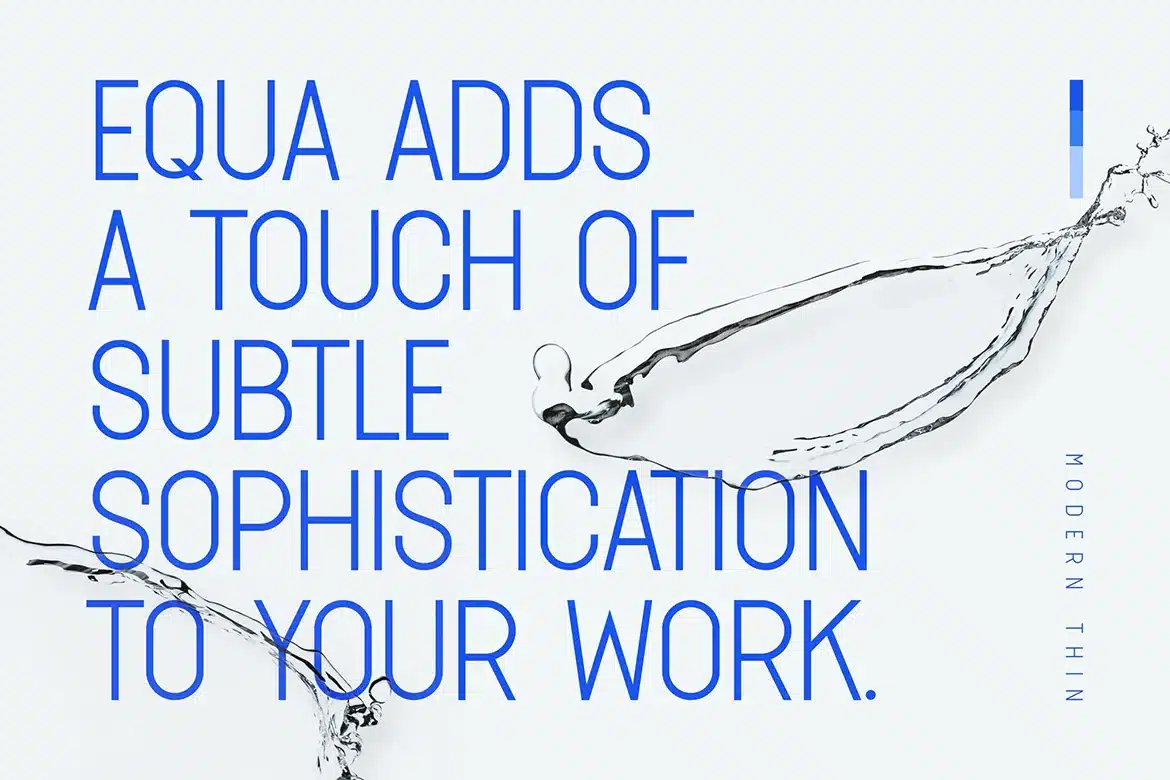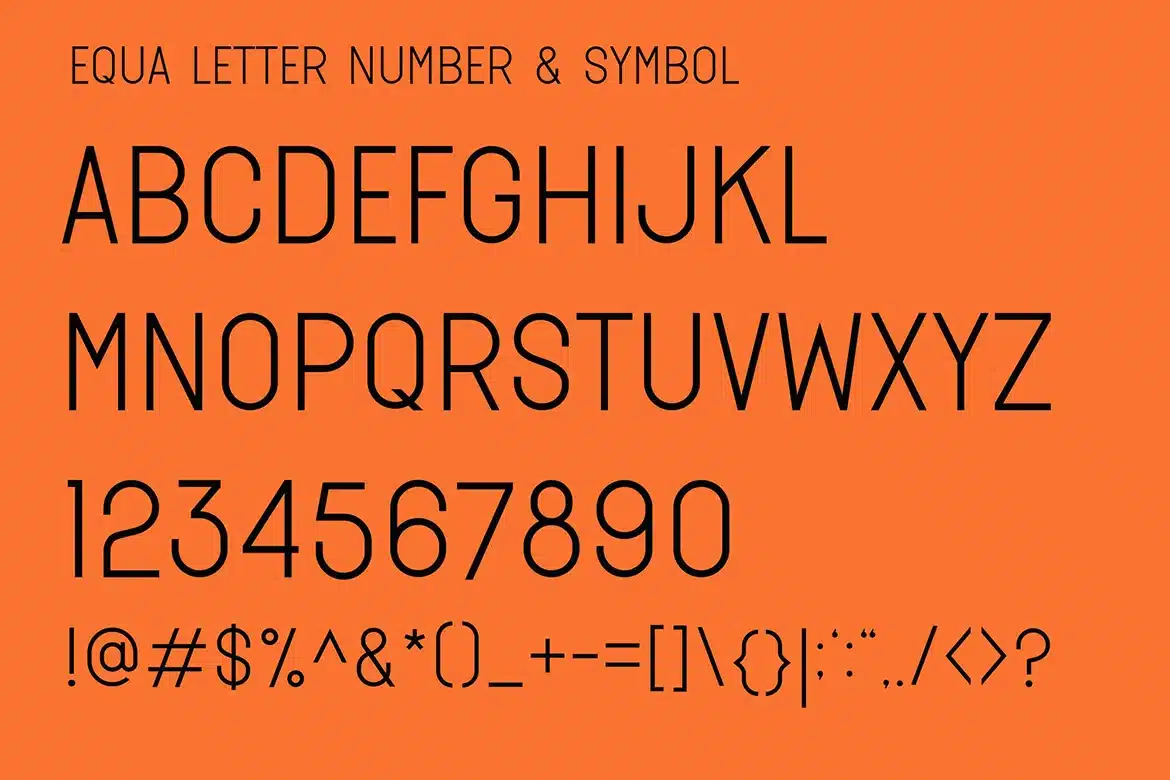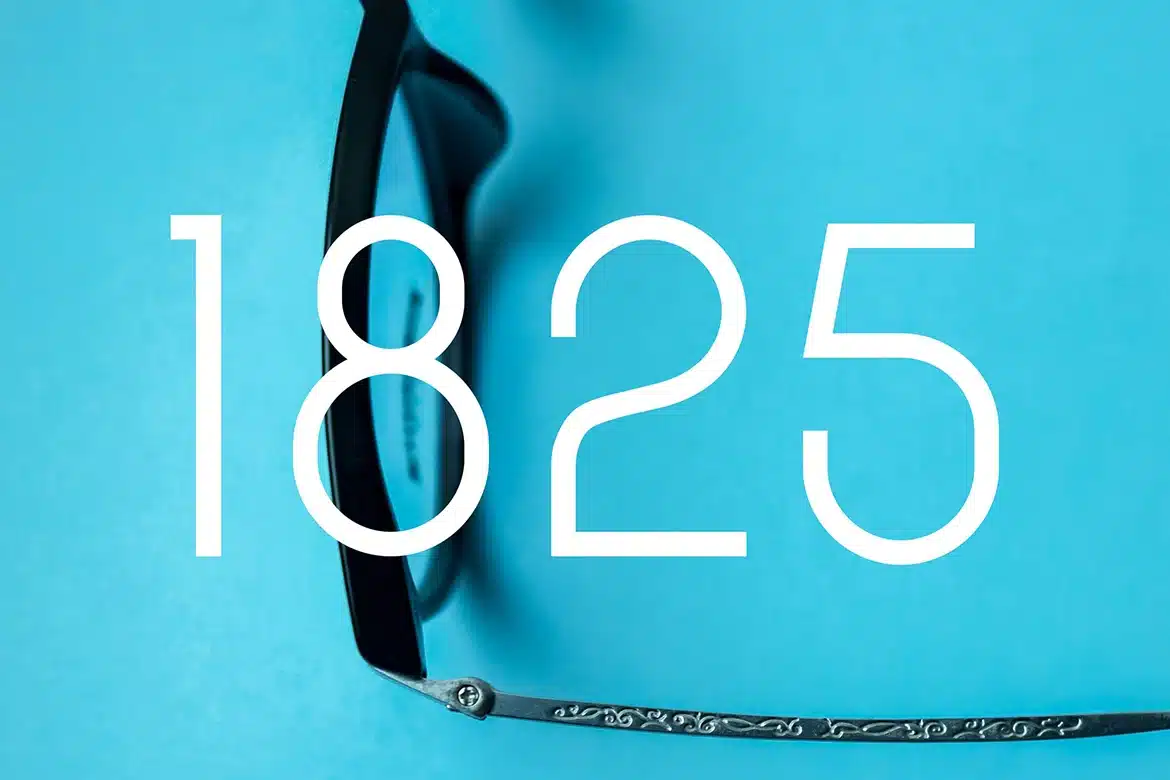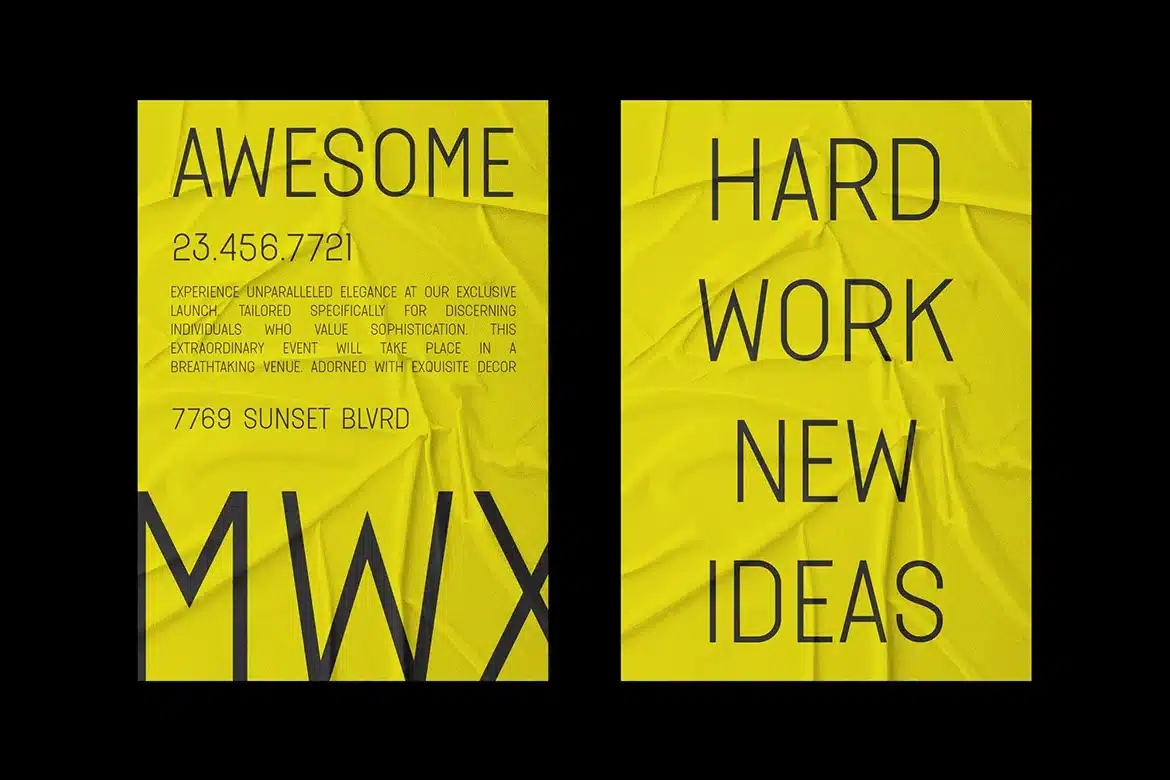
Equa Regular Font
Equa Regular is a refined, thin uppercase display font with a geometric foundation and modern elegance. Its minimalist lines and subtle proportions make it ideal for high-end branding, fashion labels, editorial headlines, or any design seeking a clean and balanced look.